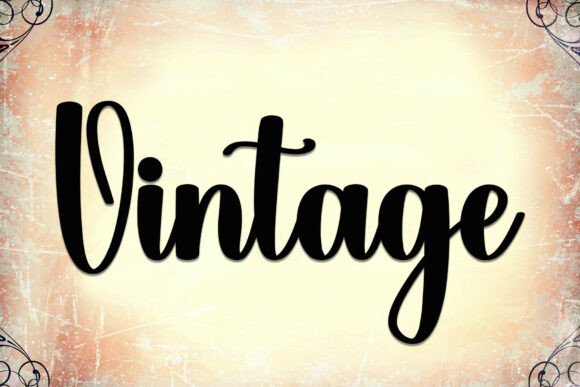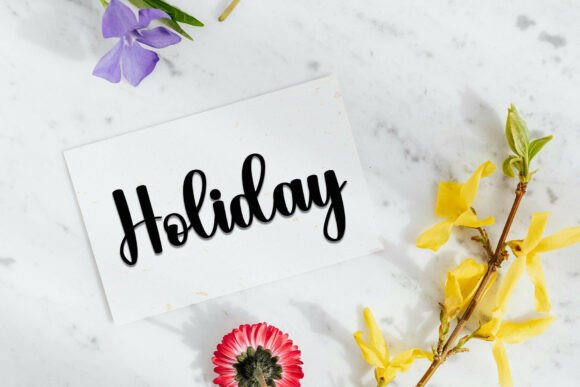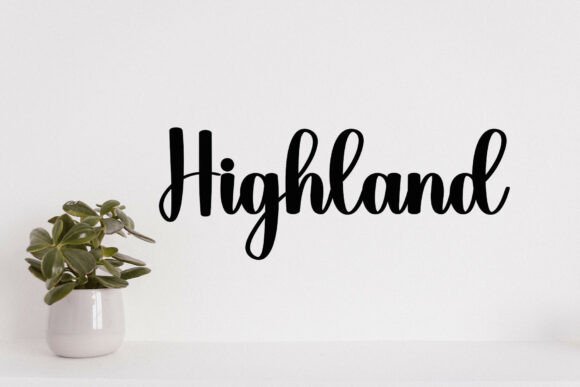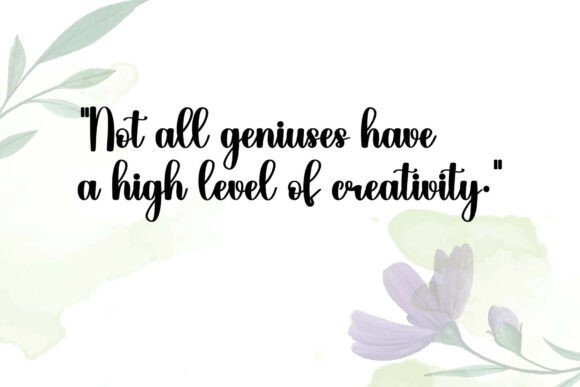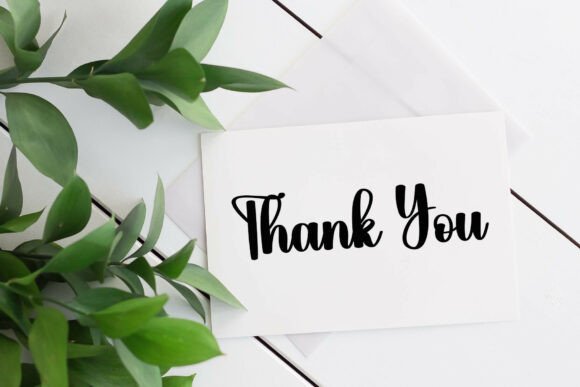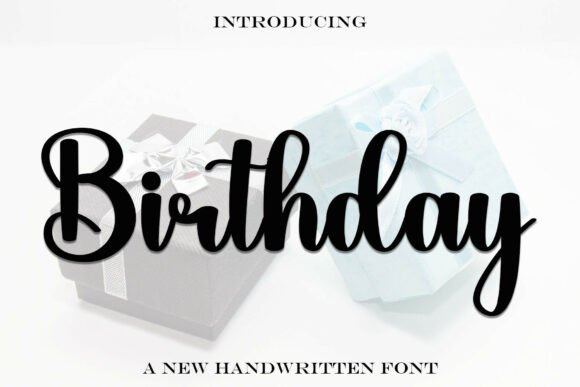
Introducing Birthday Font: The Sweet and Elegant Handwritten Font for Your Design Needs
Are you looking for a font that can add a touch of elegance and whimsy to your designs? Look no further than Birthday Font, a beautiful and versatile handwritten font that’s perfect for a variety of creative projects. In this article, we’ll explore the features and benefits of Birthday Font, and show you how it can elevate your designs to the next level.
The Charm of Birthday Font
Birthday Font is a sweet and cursive handwritten font that’s designed to bring a touch of joy and romance to your designs. Its gentle, flowing lines and delicate curves make it perfect for creating elegant and sophisticated designs that are sure to impress. Whether you’re working on a branding project, a wedding invitation, or a greeting card, Birthday Font is the perfect choice.
• Handwritten elegance: Birthday Font features beautiful, handwritten curves and lines that give it a unique and personal touch.
• Versatile: This font is perfect for a variety of design projects, from branding and logos to wedding invitations and greeting cards.
• Elegant and casual: Birthday Font strikes the perfect balance between elegance and casualness, making it perfect for designs that need to be both sophisticated and approachable.
• Easy to read: Despite its elegant and cursive nature, Birthday Font is easy to read and understand, making it perfect for body text and headlines.
Design Ideas to Use Birthday Font
Birthday Font is a versatile font that can be used in a variety of design projects. Here are some ideas to get you started:
• Branding and logos: Use Birthday Font to create a unique and memorable brand identity that’s both elegant and approachable.
• Wedding invitations and things: Add a touch of romance and whimsy to your wedding invitations, save-the-dates, and other wedding-related designs.
• Greeting cards: Create beautiful and heartfelt greeting cards for special occasions like birthdays, anniversaries, and holidays.
• Fashion and lookbook: Use Birthday Font to add a touch of elegance and sophistication to your fashion designs, lookbooks, and marketing materials.
• Marketing promotion: Create eye-catching and effective marketing materials like brochures, flyers, and posters that showcase your brand’s personality.
Why Choose Birthday Font?
With so many fonts available, why choose Birthday Font? Here are just a few reasons:
• Unique and creative: Birthday Font is a one-of-a-kind font that’s sure to make your designs stand out from the crowd.
• Elegant and versatile: This font is perfect for a wide range of design projects, from elegant and sophisticated to casual and playful.
• High-quality: This font is designed with high-quality and precision, ensuring that it looks great in any design.
In conclusion, Birthday Font is a beautiful and versatile handwritten font that’s perfect for designers and crafters who want to add a touch of elegance and whimsy to their designs. With its gentle curves, delicate lines, and easy-to-read nature, Birthday Font is perfect for a wide range of design projects, from branding and logos to wedding invitations and greeting cards. So why wait? Download Birthday Font today and start creating stunning designs that showcase your creativity and style!